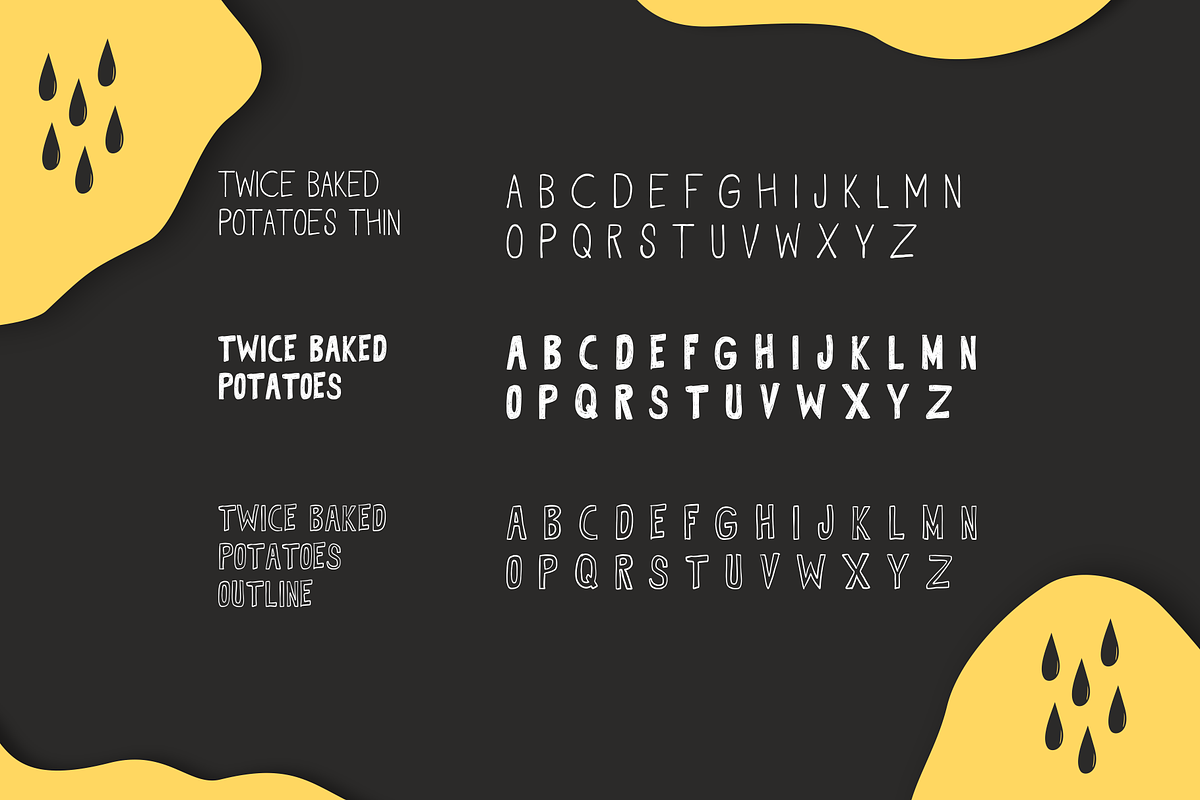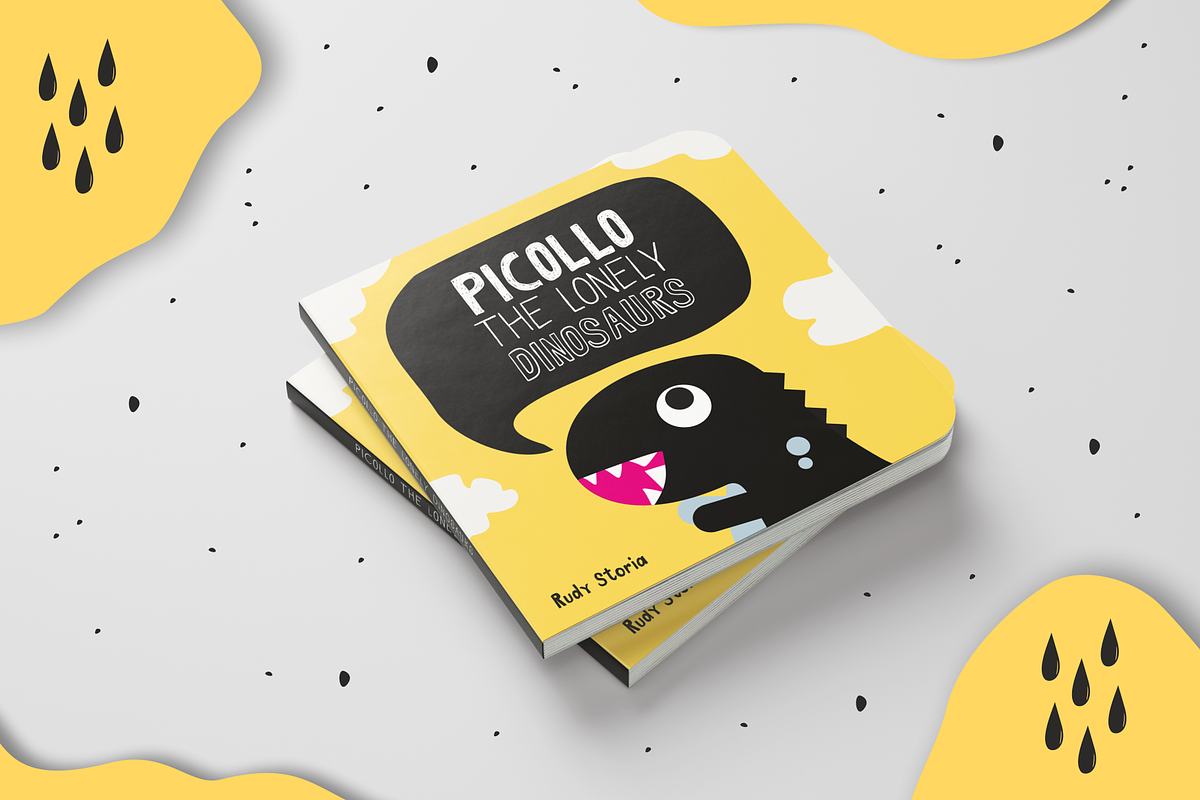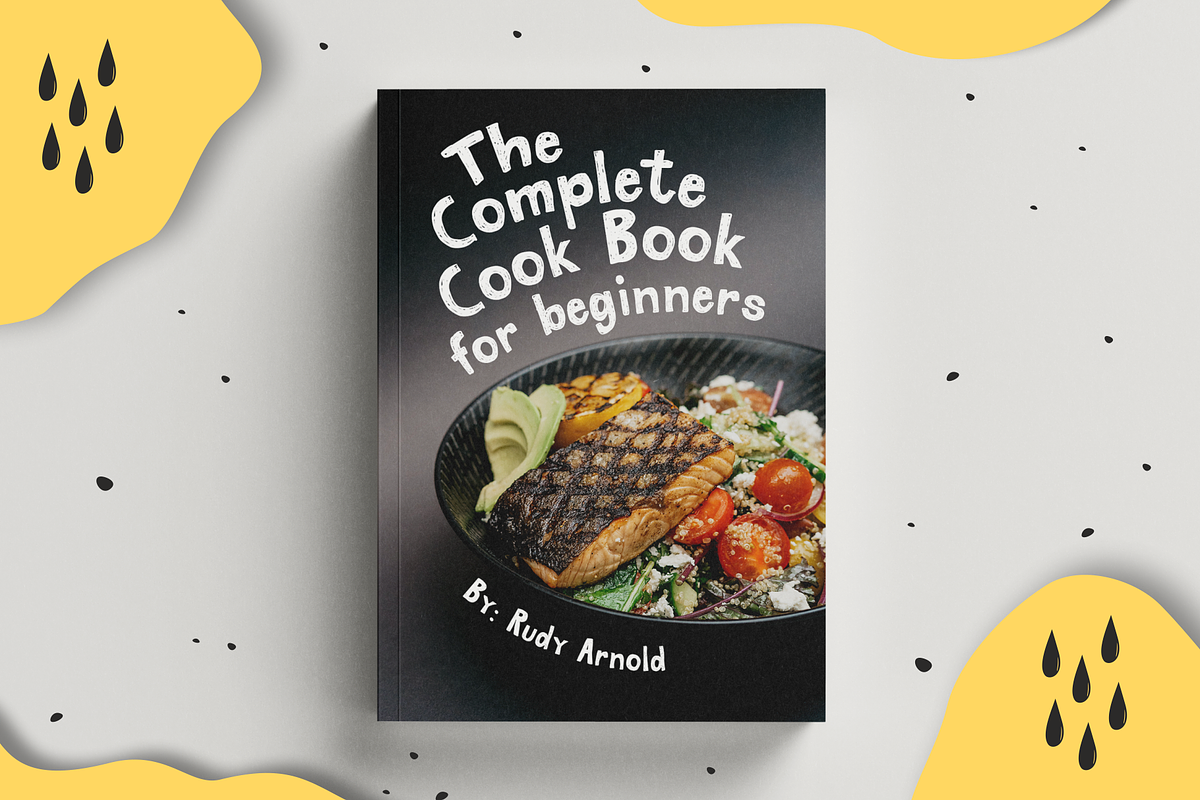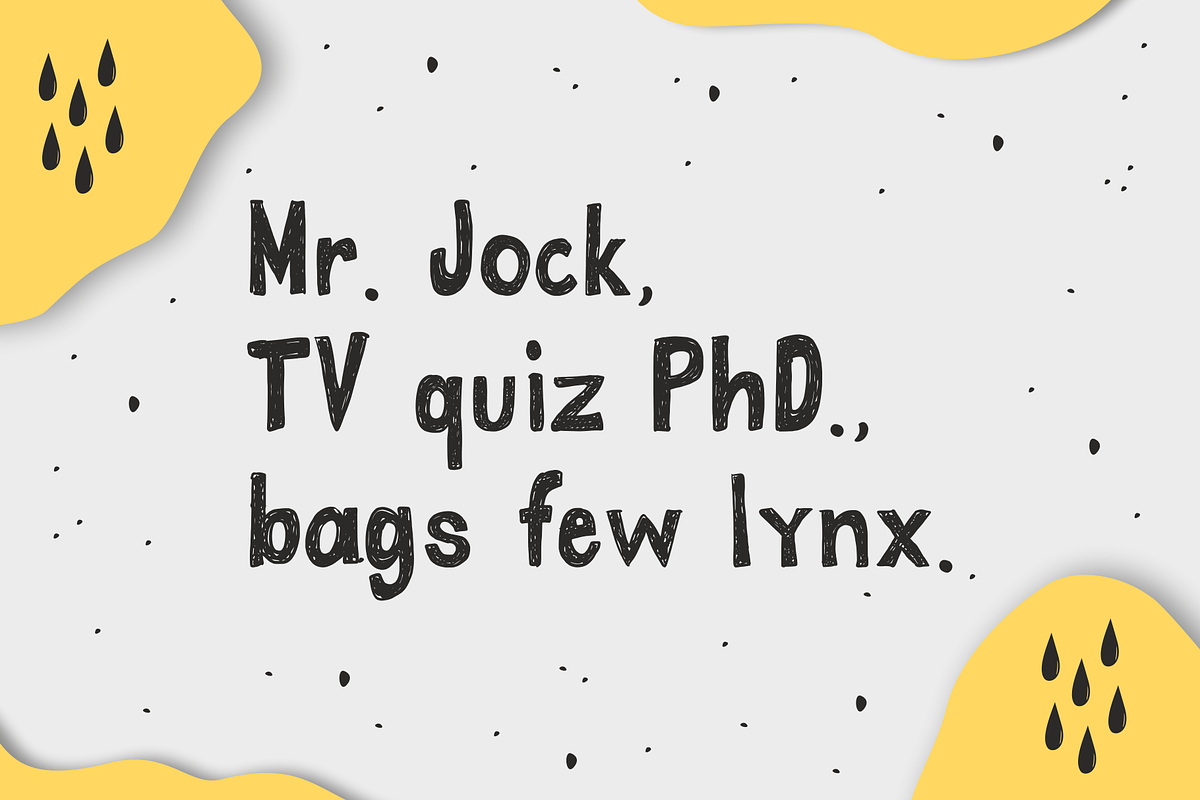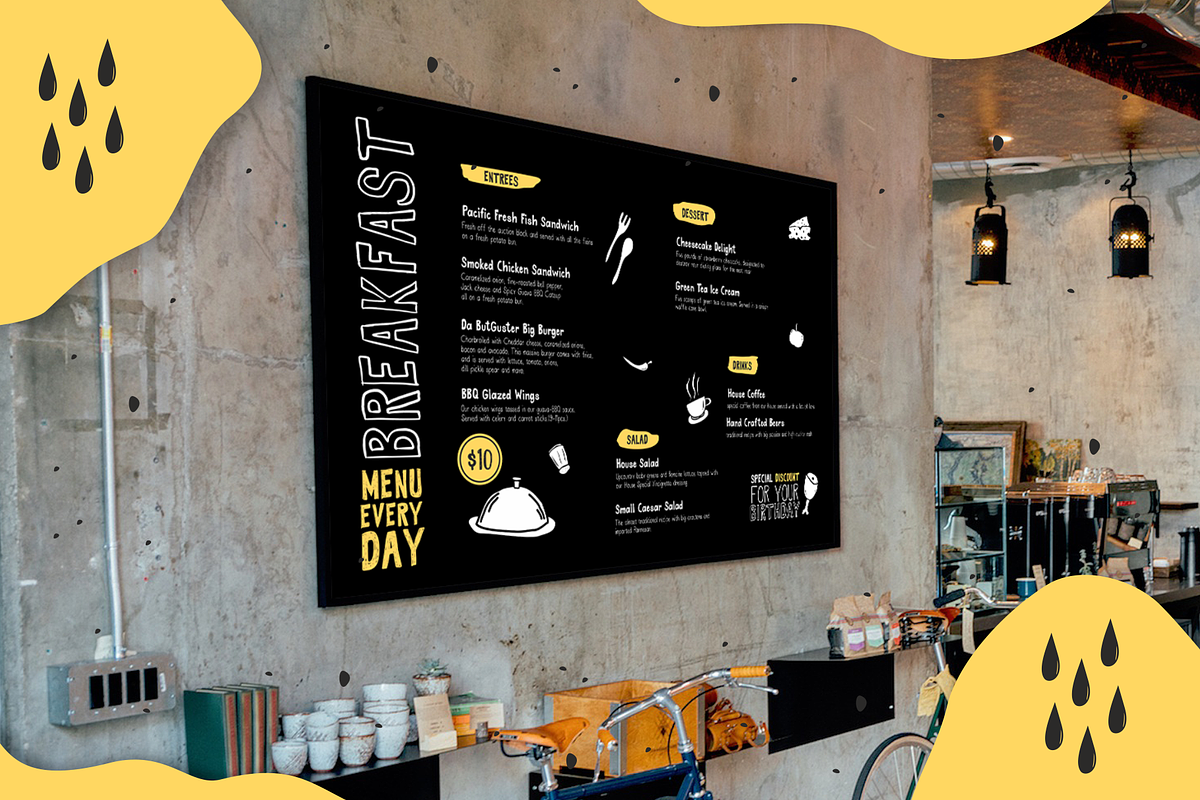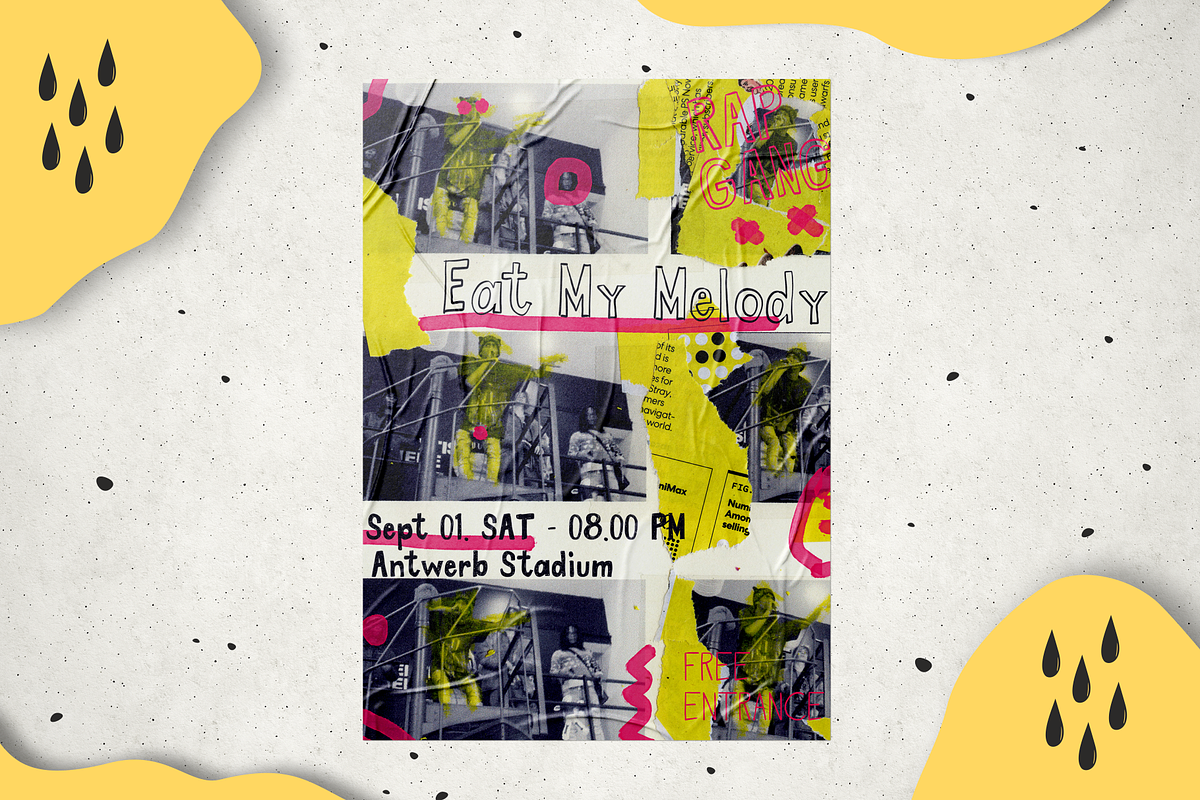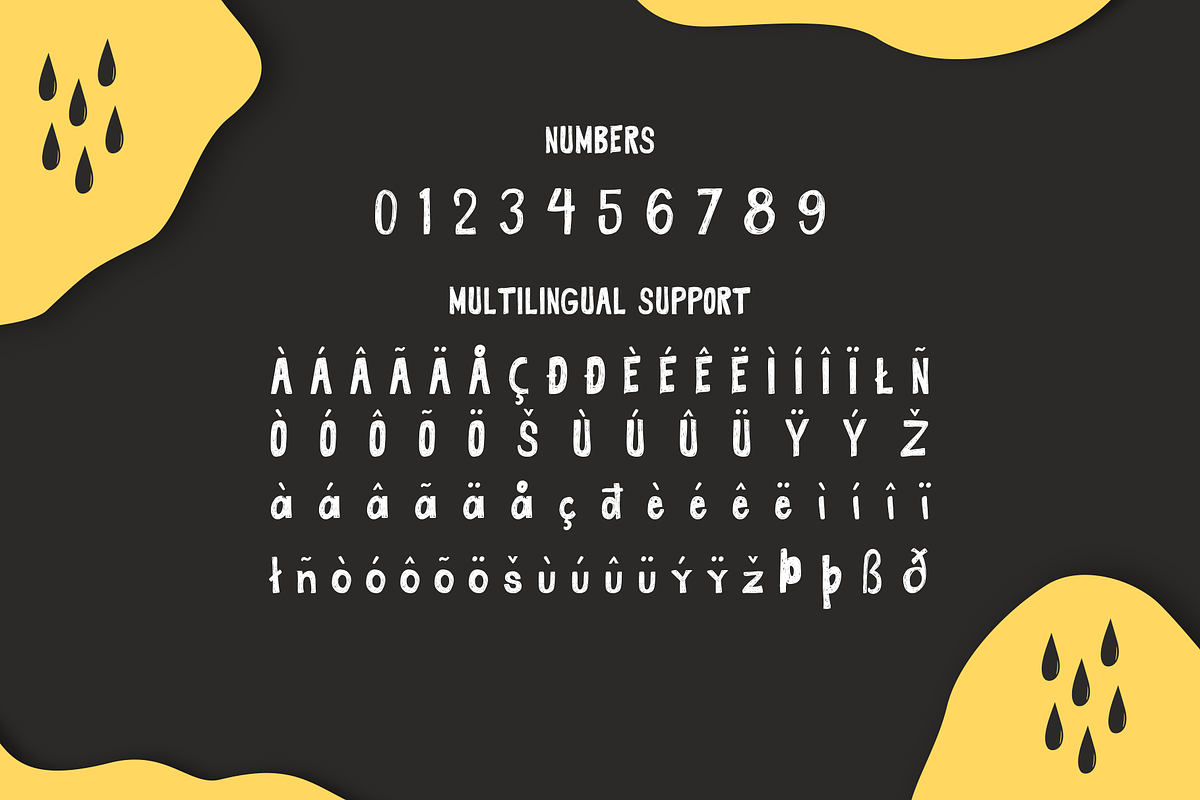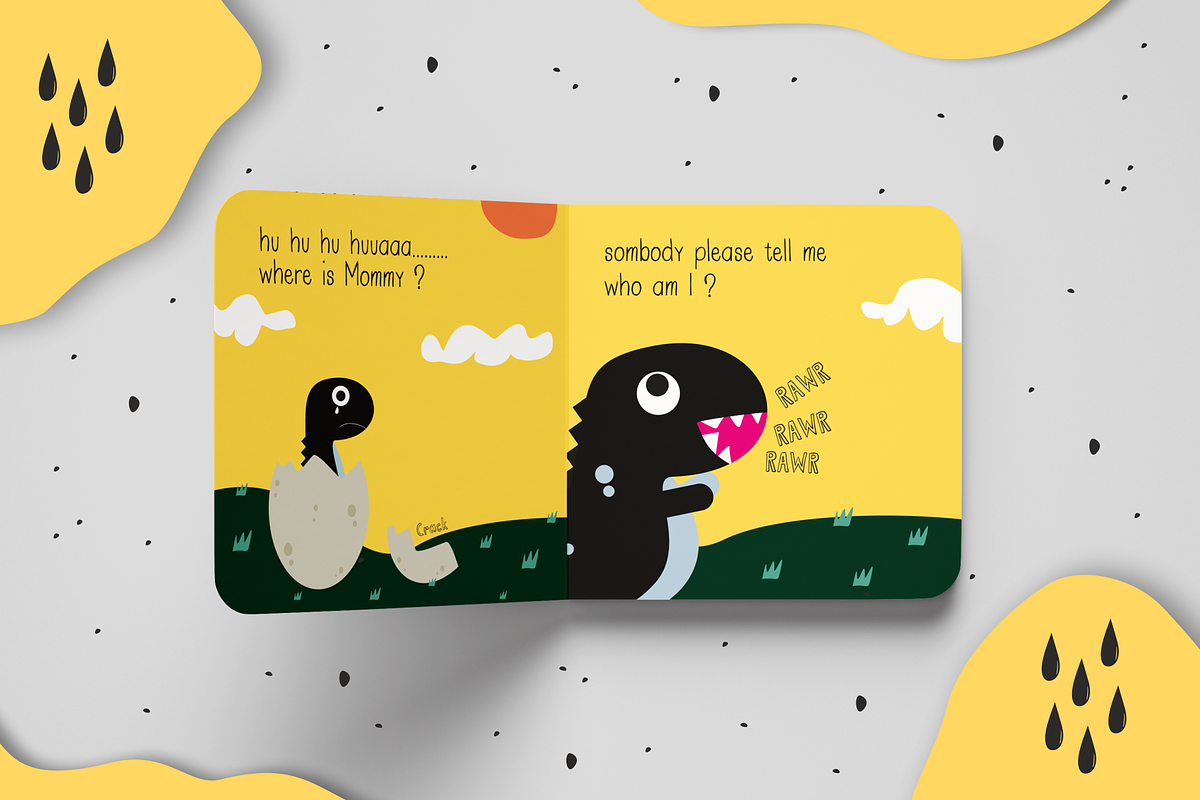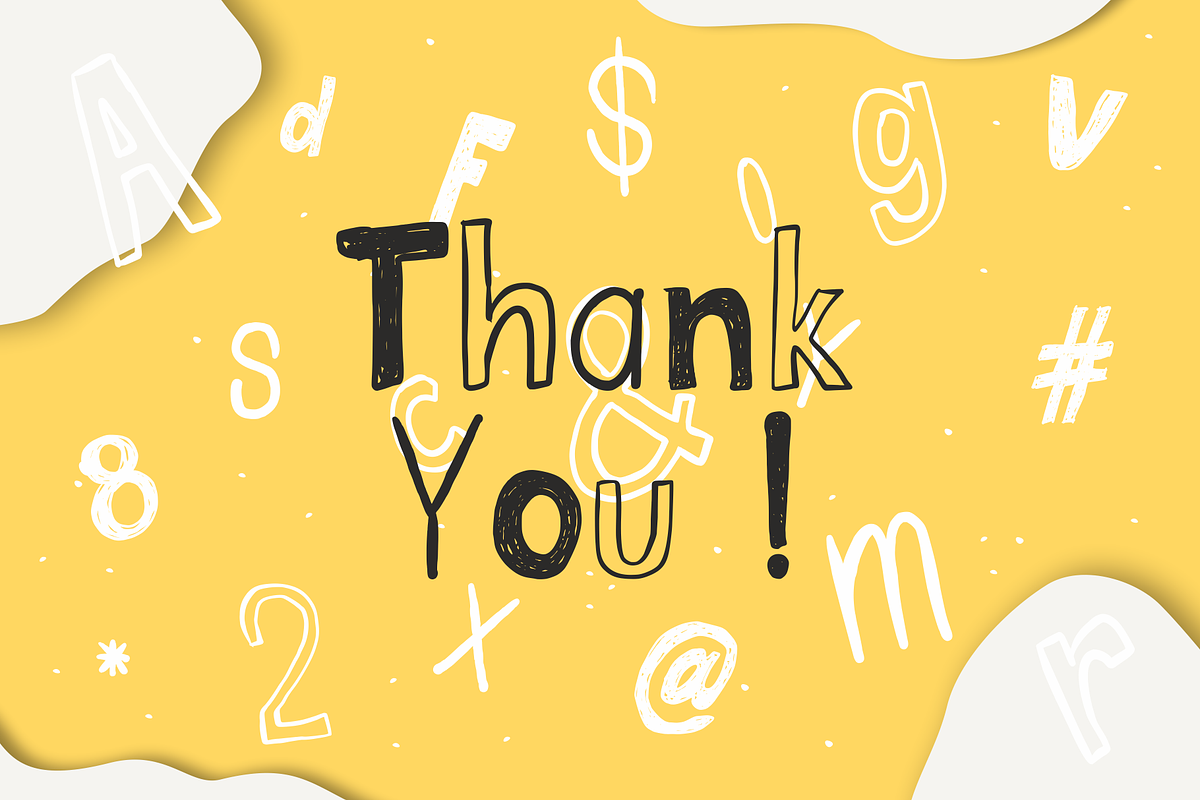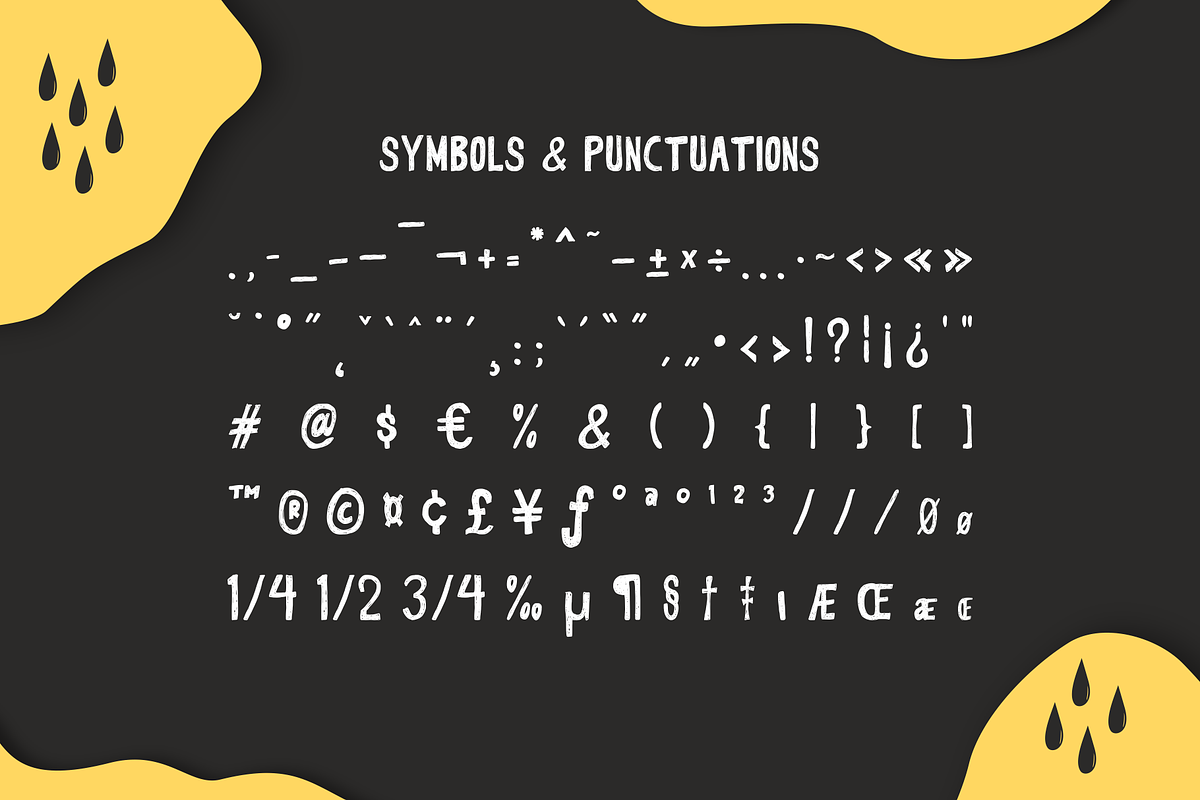
twice bake potatoes - Font Trio
Introducing our Font Trio "twice bake potatoes"
twice bake potatoes is fun and happy trio font. it has a raw, hand made, and cheerful atmosphere. twice bake potatoes came with 3 style, raw , thin and outlined fonts. It support multilingual language. It can easily be matched to an incredibly large set of projects, and good for communicating your brands. If you want to make a design that raw and fun also delicious, twice bake potatoes is your good matches.